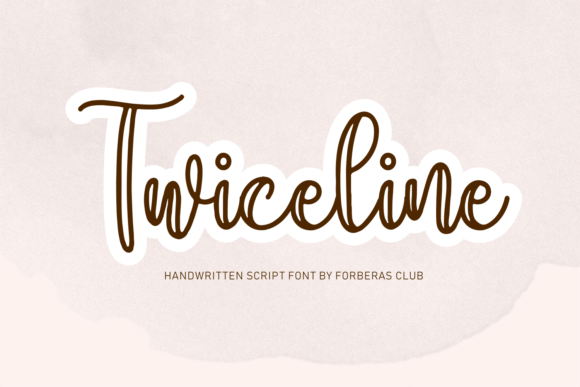
Prepare to be captivated by the Twiceline Font, a beautiful script that exudes elegance and charm. This stunning creation by Forberas Club is crafted to elevate your designs, adding a personal touch that leaves a lasting impression.
Twiceline dances across the page, its smooth, flowing lines capturing attention and creating a sense of sophistication. Its Latin Script roots shine through in every character, evoking a timeless allure that transports you to a world of romance and beauty.
Step into a world of endless possibilities with Twiceline. Whether you're crafting headings, logos, ads, or printed quotes, this font infuses your projects with a touch of luxury. Its versatility extends to packaging, website design, and social media branding, making it the perfect choice for businesses looking to make a statement.
With Twiceline, your designs will come alive, captivating your audience with its graceful strokes and enchanting aura. Experience the magic of Twiceline and let your creativity soar, leaving a trail of elegance wherever your words flow.